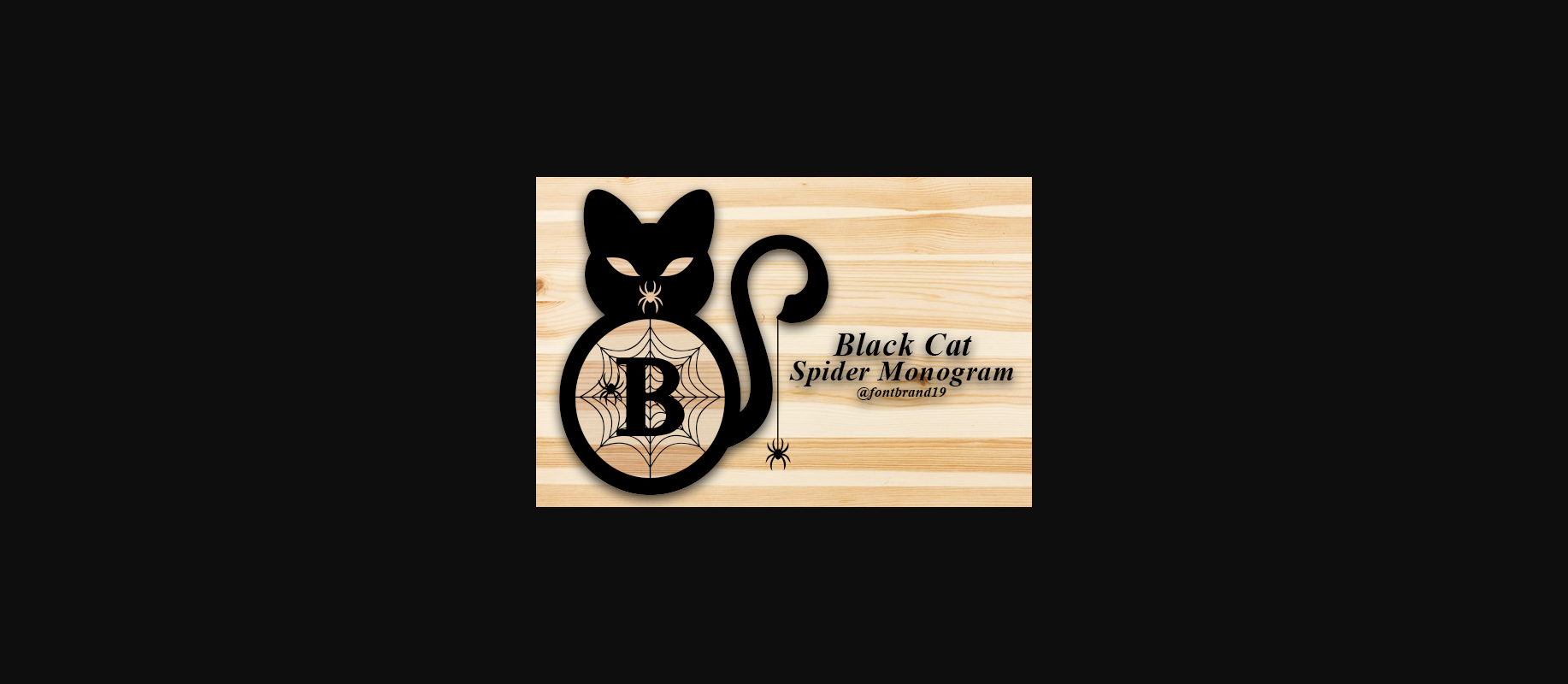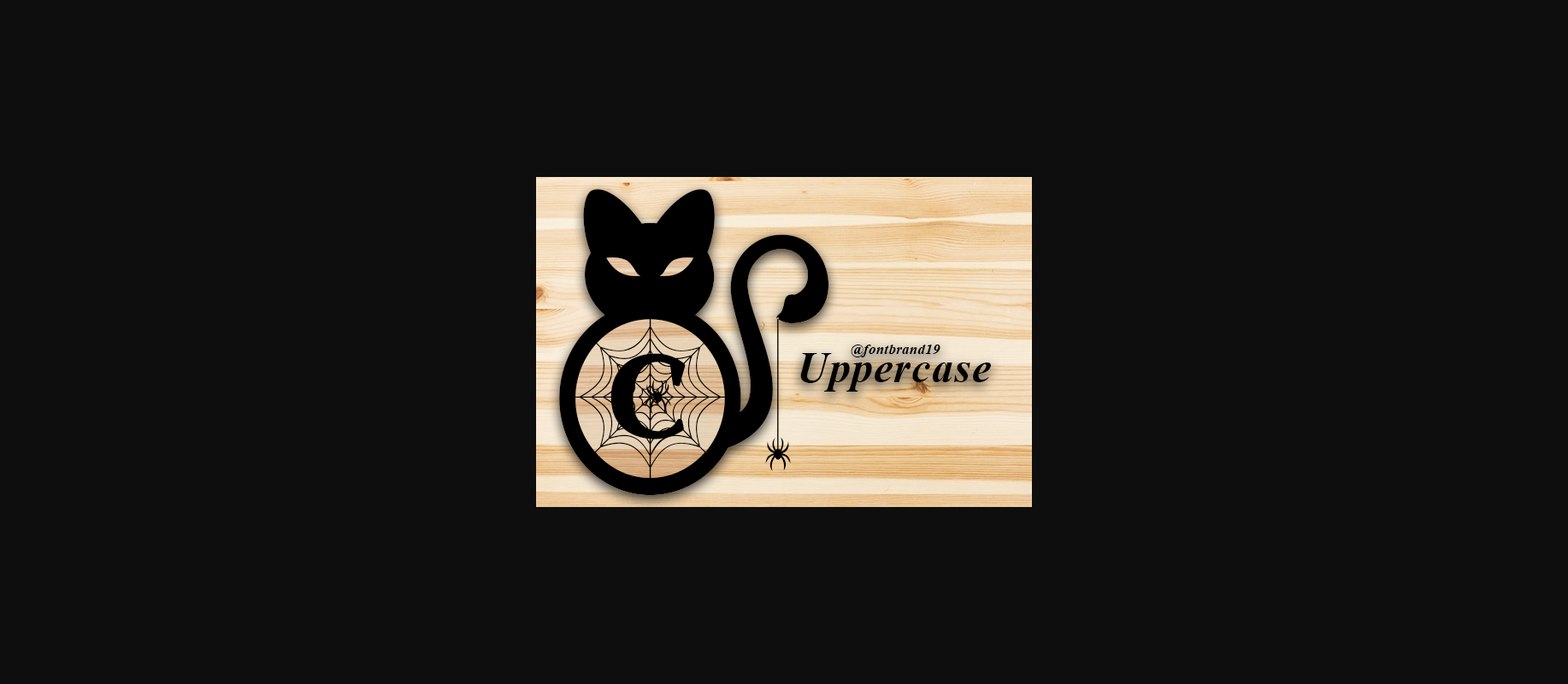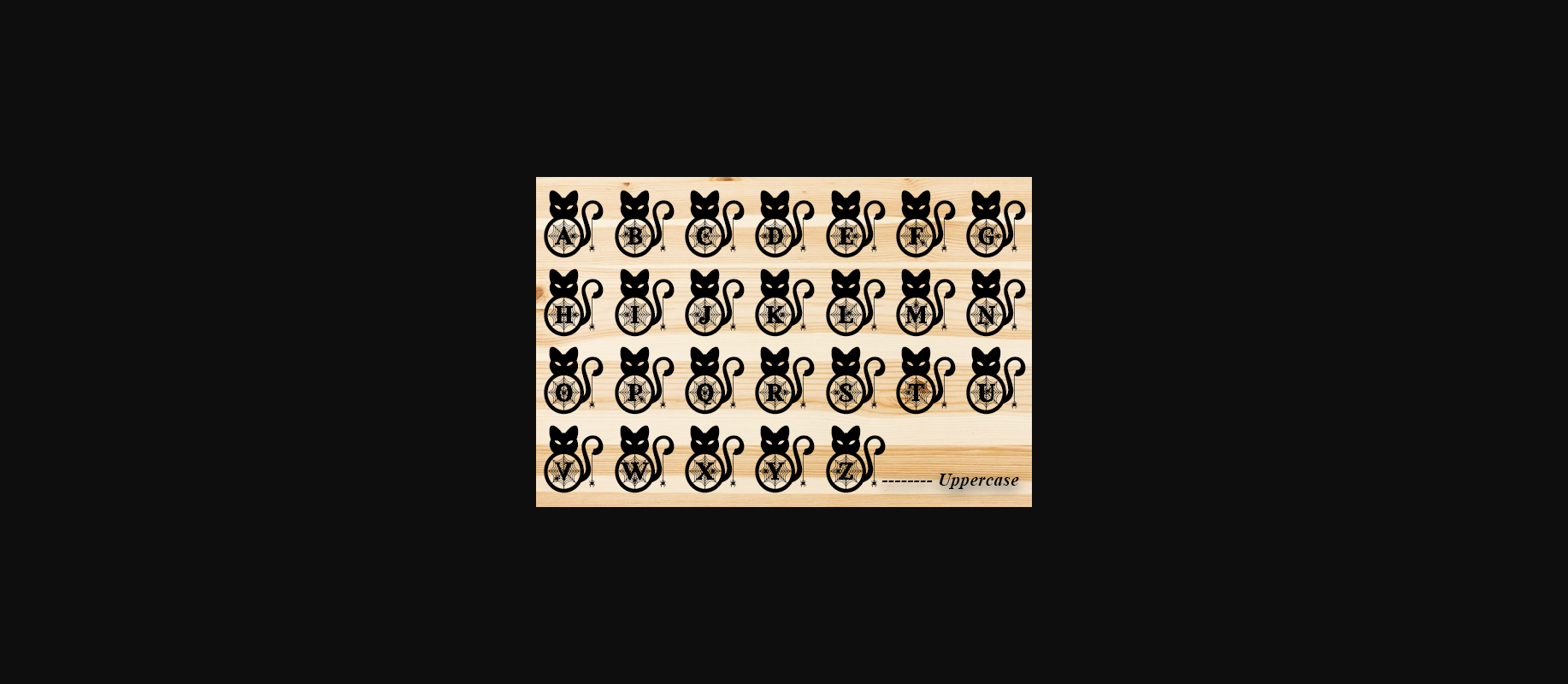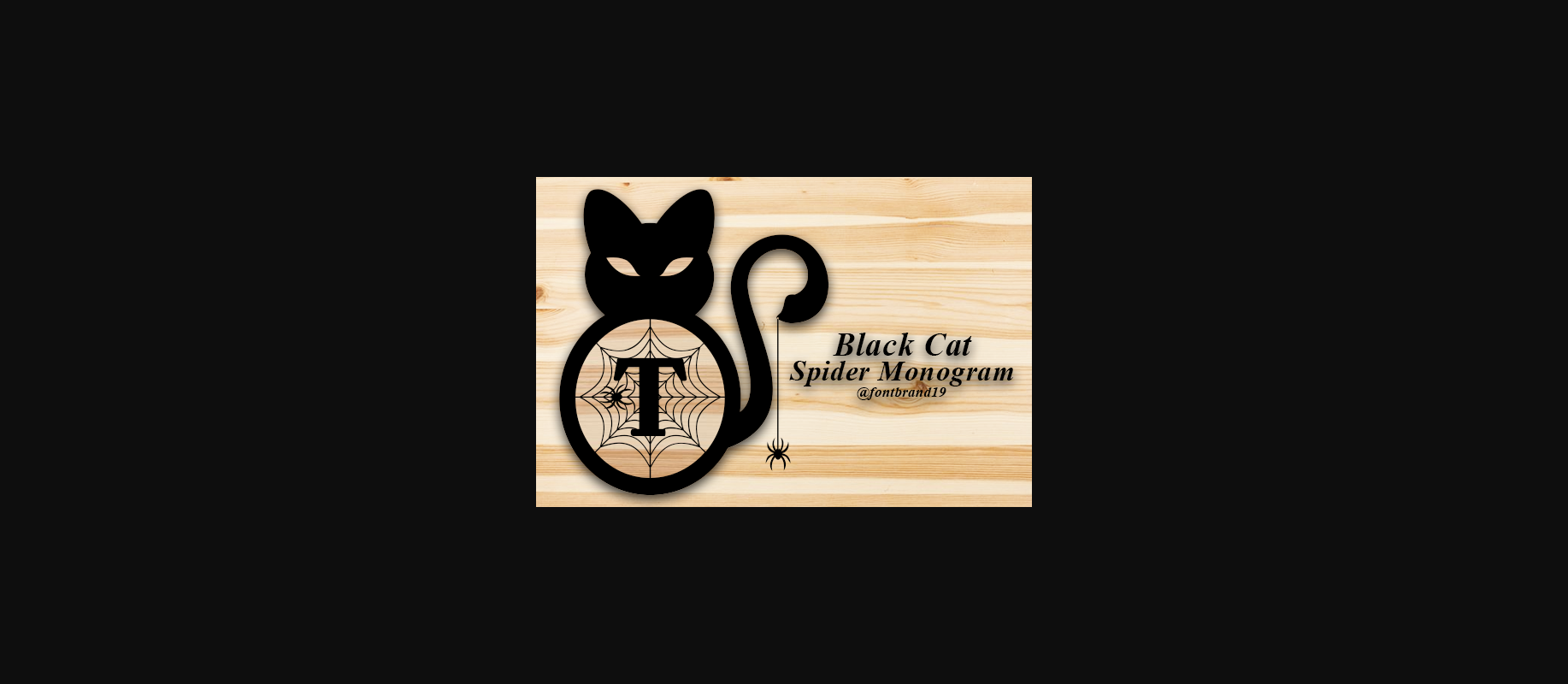
Black Cat Spider Monogram Font
About Black Cat Spider Monogram Font
Black Cat Spider Monogram is an incredibly unique and spooky decorative font. Add it to each of your Halloween designs and make them stand out!